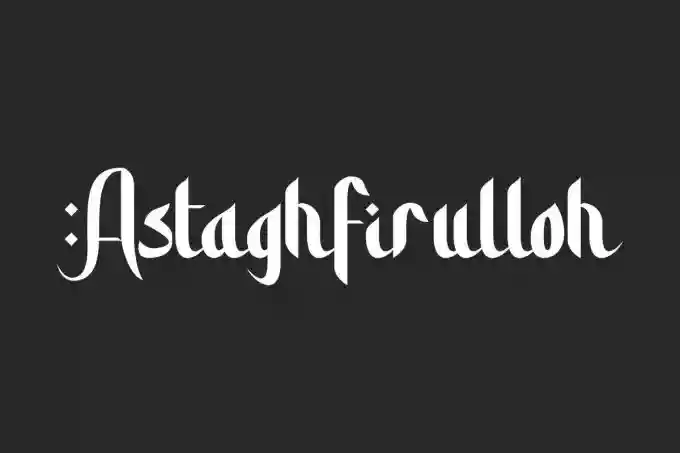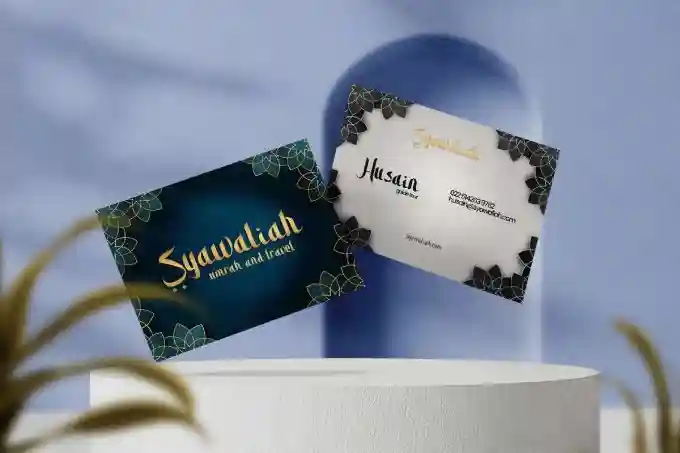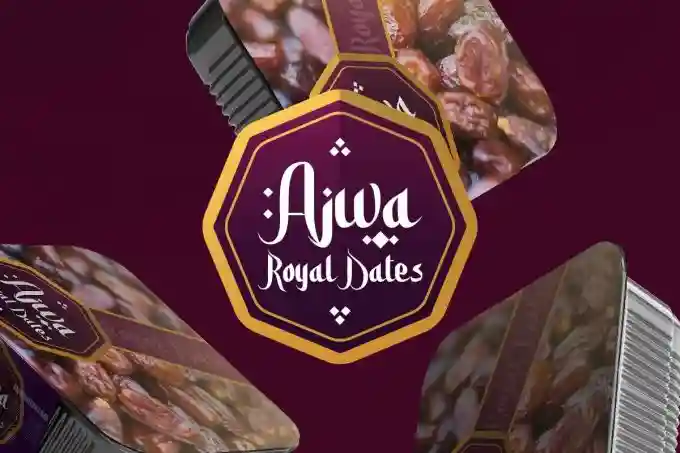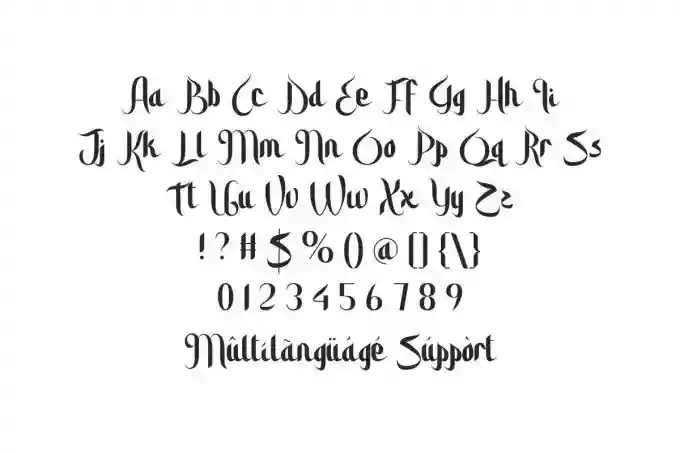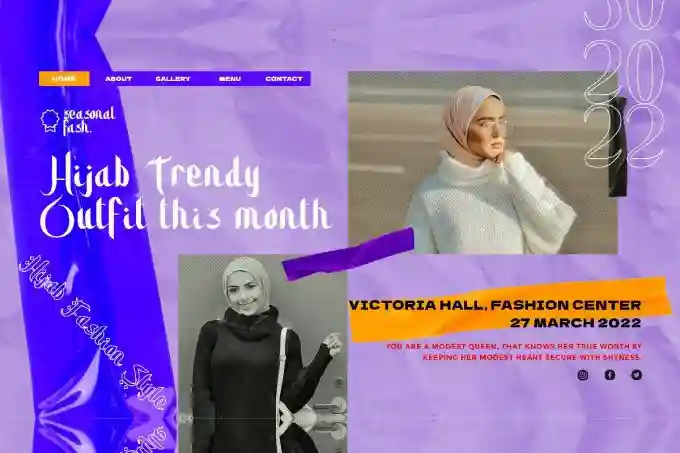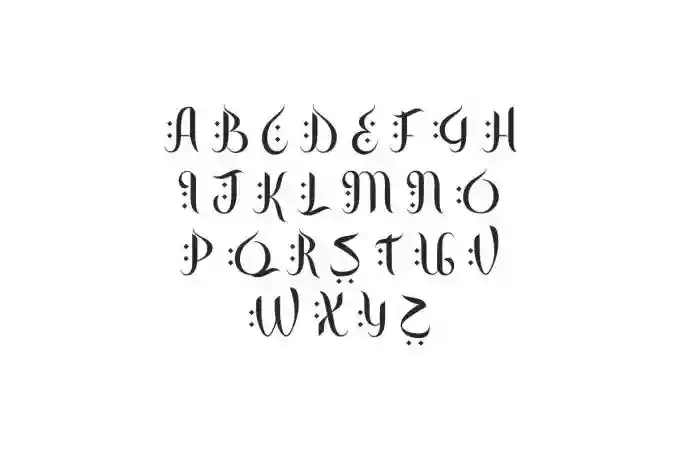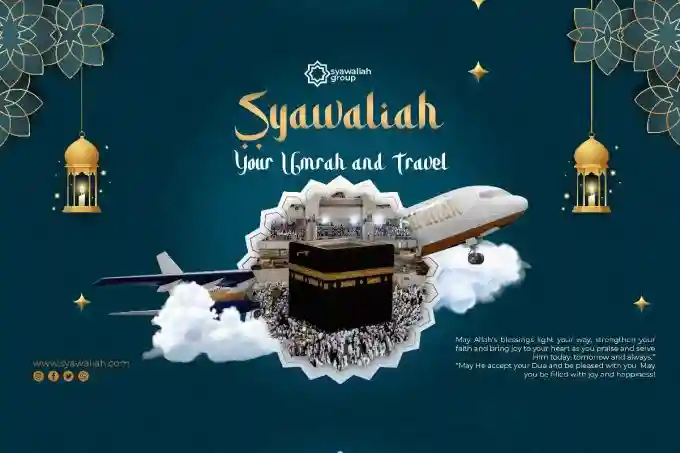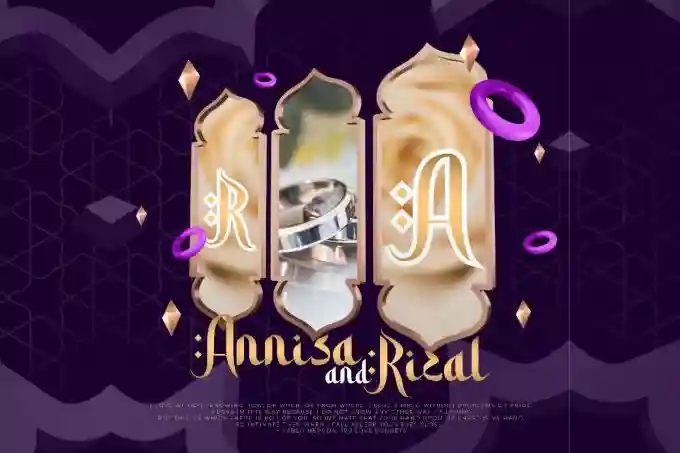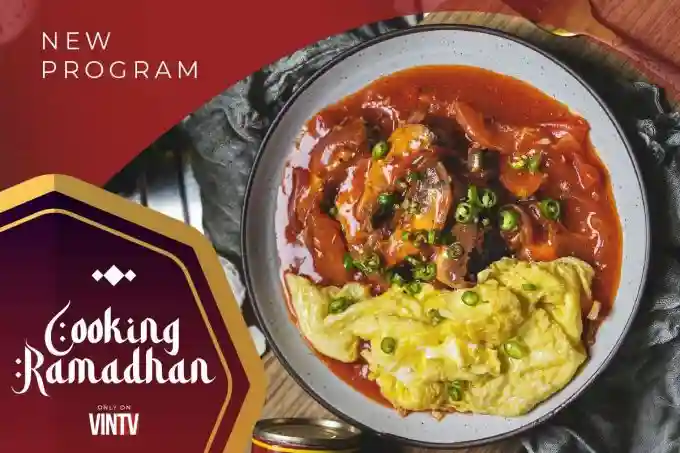
Astaghfirulloh Display Font – Elegant Islamic-Inspired Typeface for Religious Designs, Branding, Posters, and Spiritual Projects
A Font That Reflects Faith and Elegance
Introducing Astaghfirulloh Display Font, a beautifully designed typeface inspired by Islamic calligraphy and modern Arabic aesthetics. This font is ideal for religious designs, Ramadan or Eid greetings, spiritual branding, mosque posters, and Islamic event promotions.
Designed with Purpose and Beauty
The style of Astaghfirulloh combines bold curves and refined details to create a visual identity that feels both sacred and modern. As a result, it works wonderfully for designers looking to blend tradition with contemporary design.
Astaghfirulloh Font is an Arabic mimicking display font with original style. This font will be perfect for the Islamic events, branding, Ramadan or any other Islamic celebration. This font will be suitable for many industries such as food and beverages brands, islamic fashion, restaurant, travel, wedding and event organizer, publishing, and more!
Astaghfirulloh Font includes full set of Uppercase and Lowercase Basic Characters, Numerals and Punctuation. Also it contains alternative characters with different shapes so that it adds a special impression to every project you work on such as billboard, blog headers, business card, invitation, label, magazine, product packaging, quote, etc. Be a unique in a minute and start creating today!